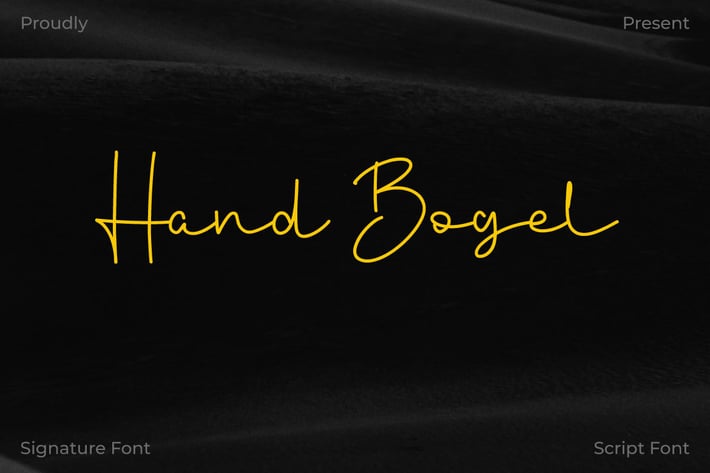
Hand Bogel - Signature Script Font
Introducing Hand Bogel – a luxurious script font that embodies sophistication and refinement. Inspired by the art of elegant signatures, this font adds a touch of prestige to your projects, elevating them with its graceful curves and exquisite details.
Hand Bogel is meticulously crafted to emulate the fluidity and style of handwritten signatures, making it perfect for branding, logos, packaging, invitations, and more. Each letter is intricately designed to exude elegance and charm, creating a timeless appeal that captivates the eye.
With its flowing lines and delicate flourishes, Hand Bogel evokes a sense of class and exclusivity, making it ideal for projects that require a touch of sophistication. Whether you're designing for luxury brands, upscale events, or high-end products, this font adds a sense of refinement that sets your work apart.